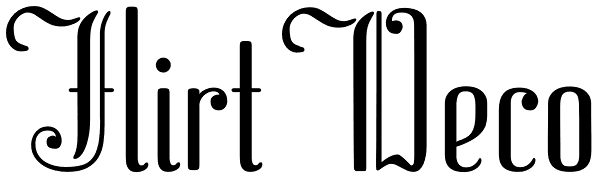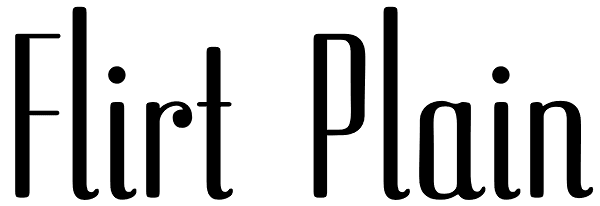
Flirt
It's a very happy day when we stumble upon beautiful alphabets that were never digitized. It is even a happier day when the beautiful alphabet finds its way to us through friends and people who like our work. Some two months ago, the forms of this...